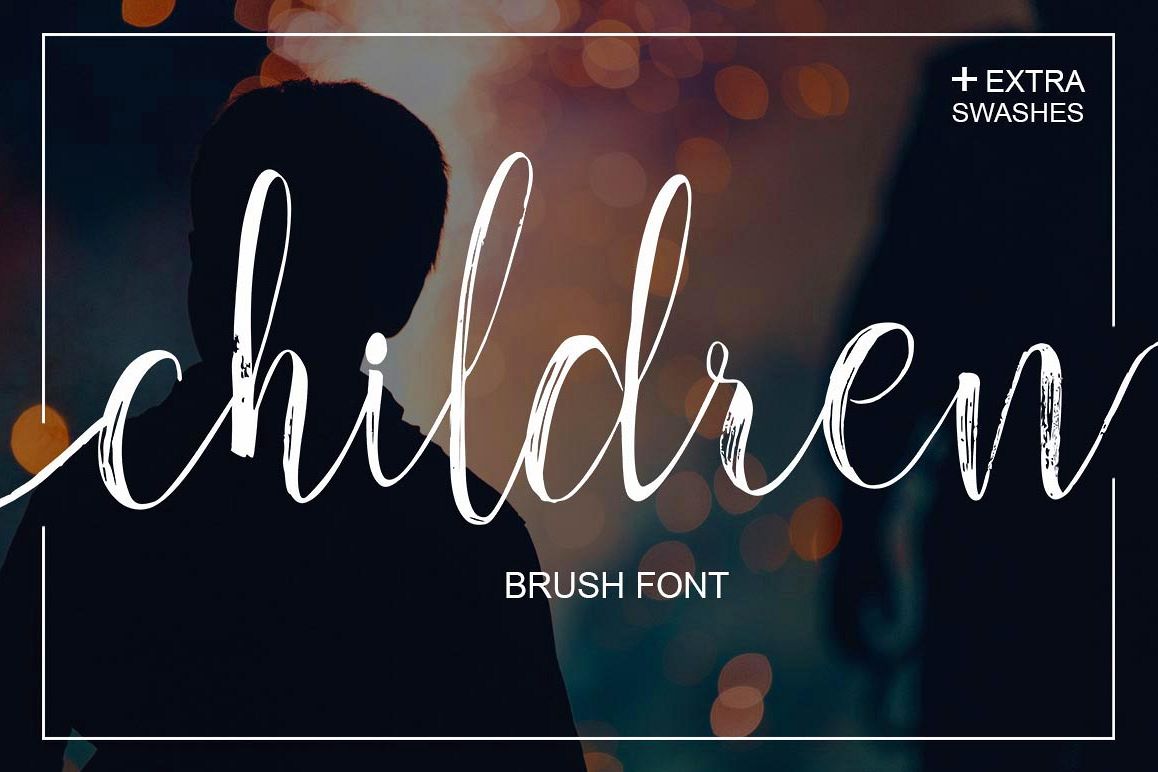
Children
children Swashes
Children Script
Children Script + pretty swashes modern font, organic, dynamic and energetic sytle.Can used for various purposes. such as the title, signature, logo, correspondence, wedding invitations, letterhead, signage, labels, newsletters, posters, badges, etc.